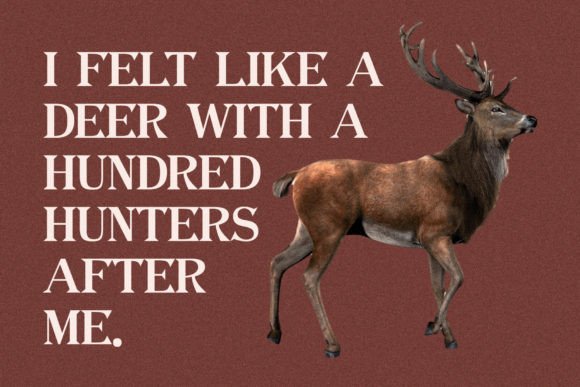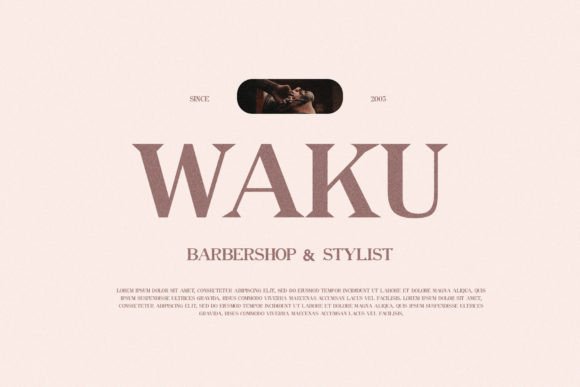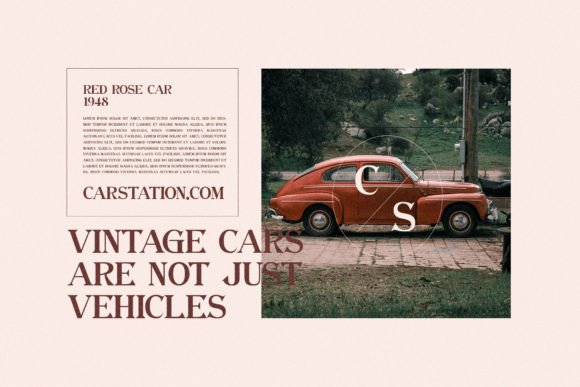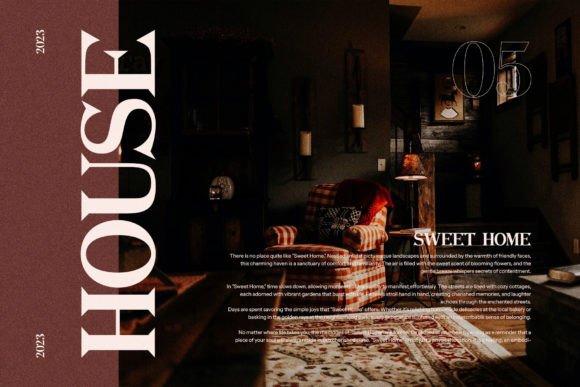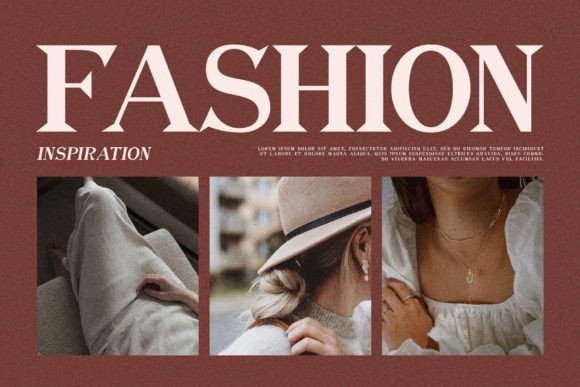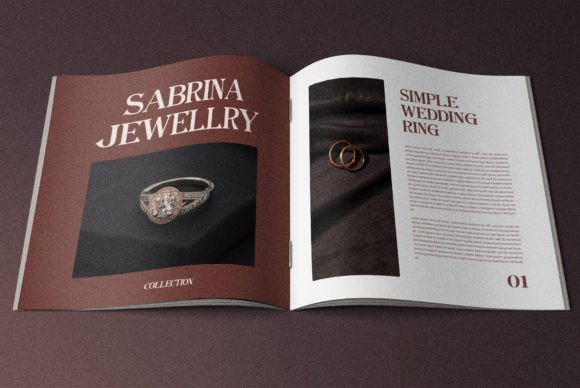
Introduction to Maron Font
As a designer, you’ve probably found yourself in a situation where you’re trying to bring a unique touch to a creative project, but the right font seems elusive. The perfect font can elevate your design from ordinary to extraordinary, and that’s exactly what the Maron Font offers. This elegant serif typeface combines a classy and modern style that’s perfect for branding and logo designs.
Whether you’re working on a branding project, creating social media posts, or designing product packaging, the Maron Font is an excellent design resource that can help you achieve high-quality results. With its high level of readability, you can trust that your message will be conveyed effectively to your audience.
Honest Review: Maron Font
I recently had the chance to work with the Maron Font, and I must say it’s been a game-changer for my creative projects. The high-quality design resource is perfect for anyone looking to add a touch of elegance to their work.
- ✨ The Maron Font is incredibly versatile and can be used in a variety of contexts, from headers to body text.
- ✨ The transparent background makes it easy to layer and manipulate the font without any distractions.
- ⚠️ The font may not be suitable for use in very small sizes, as the details can get lost.
- ⚠️ Some users may find the font a bit too ornate for their taste.
Overall, I’m thoroughly impressed with the Maron Font. It’s a fantastic addition to any design library, and I’d highly recommend it to anyone looking for a high-quality, free download. With a little creativity, the possibilities are endless.
The Maron Font is commonly used in design projects such as logos, business cards, and brochures. It is also used in digital design projects such as website headers and footers. The font’s clean and modern look makes it ideal for creative projects that require a high-quality design resource.
To get the most out of Maron Font, use it in conjunction with other design elements such as images and graphics. Experiment with different font sizes, colors, and styles to create a unique and professional-looking design. The Maron Font is a high-quality design resource that is perfect for creative projects that require a transparent background and a clean, modern look.